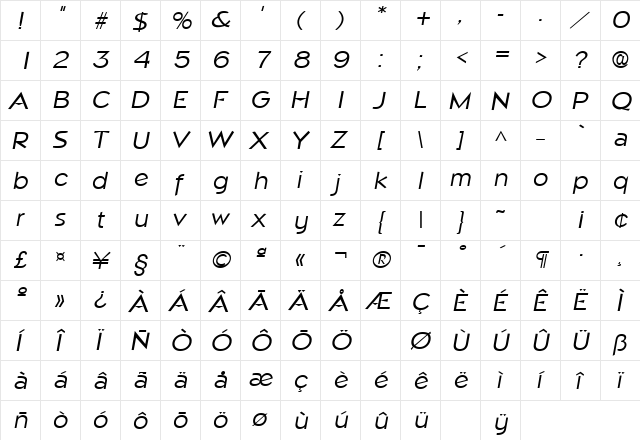
Napoli Italic
Design Context for Napoli Typeface
Napoli takes a measured approach to typography — its balanced proportions and neutral character make it a reliable workhorse for both digital and print work. Its italic angle brings a sense of urgency and motion to the letterforms.
Pro Tip: Try Napoli for annotation and caption copy alongside an upright companion — the contrast in angle creates a dynamic but ordered typographic system.